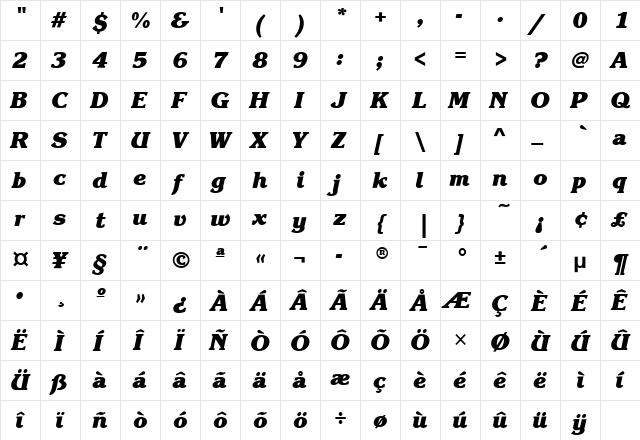
KorinnaBldITC Bold Italic Font Preview
KorinnaBldITC Bold Italic
KorinnaBldITC Bold Italic Font Details
Design Context for KorinnaBldITC Typeface
KorinnaBldITC takes a measured approach to typography — its balanced proportions and neutral character make it a reliable workhorse for both digital and print work. The dynamic lean of this cut emphasises speed and emphasis in any layout. The heavy weight commands attention and anchors typographic hierarchies.
Pro Tip: Use KorinnaBldITC for emphasis, pull quotes, and subheadings where its slanted energy can add rhythm to the layout.